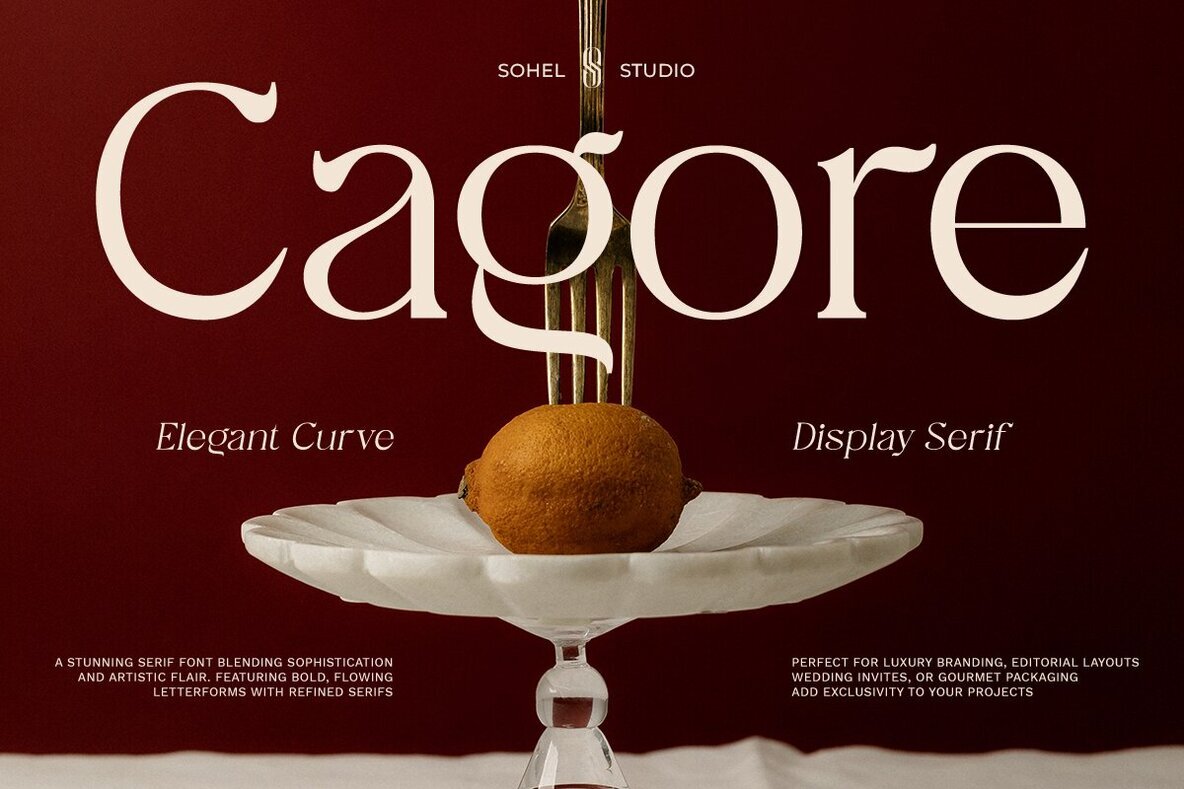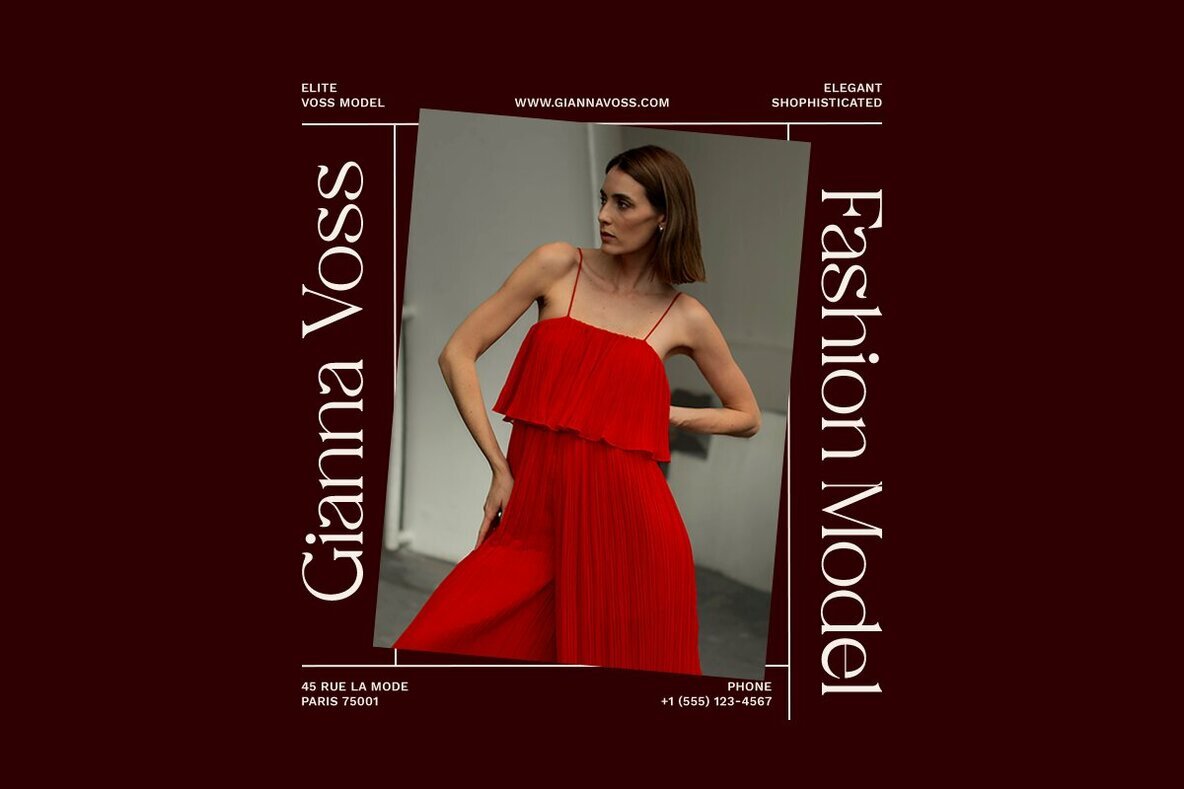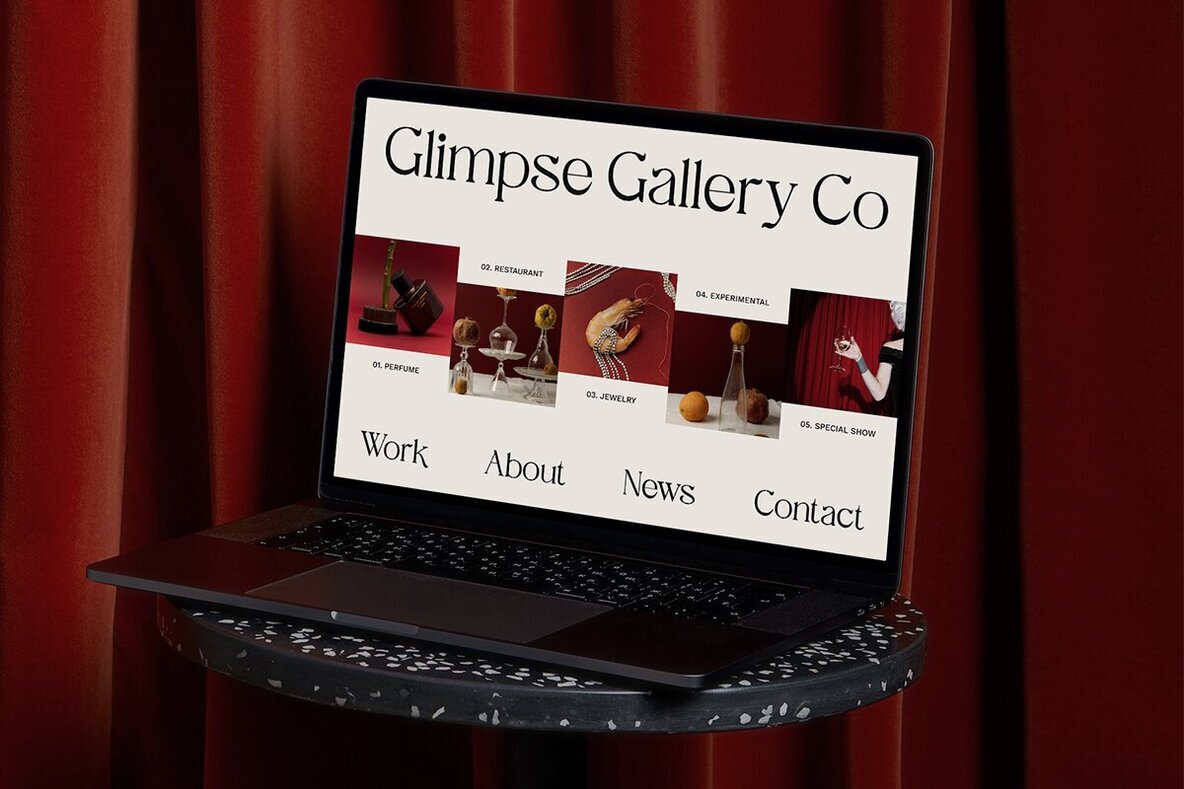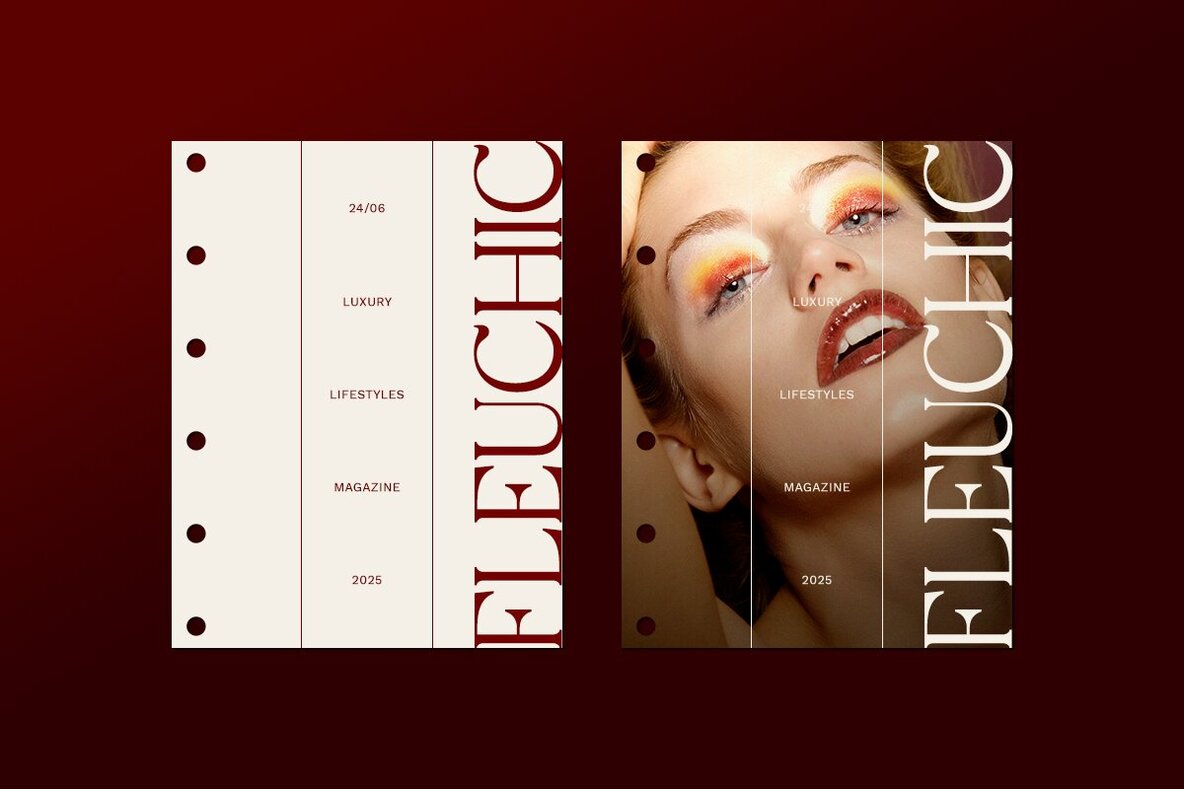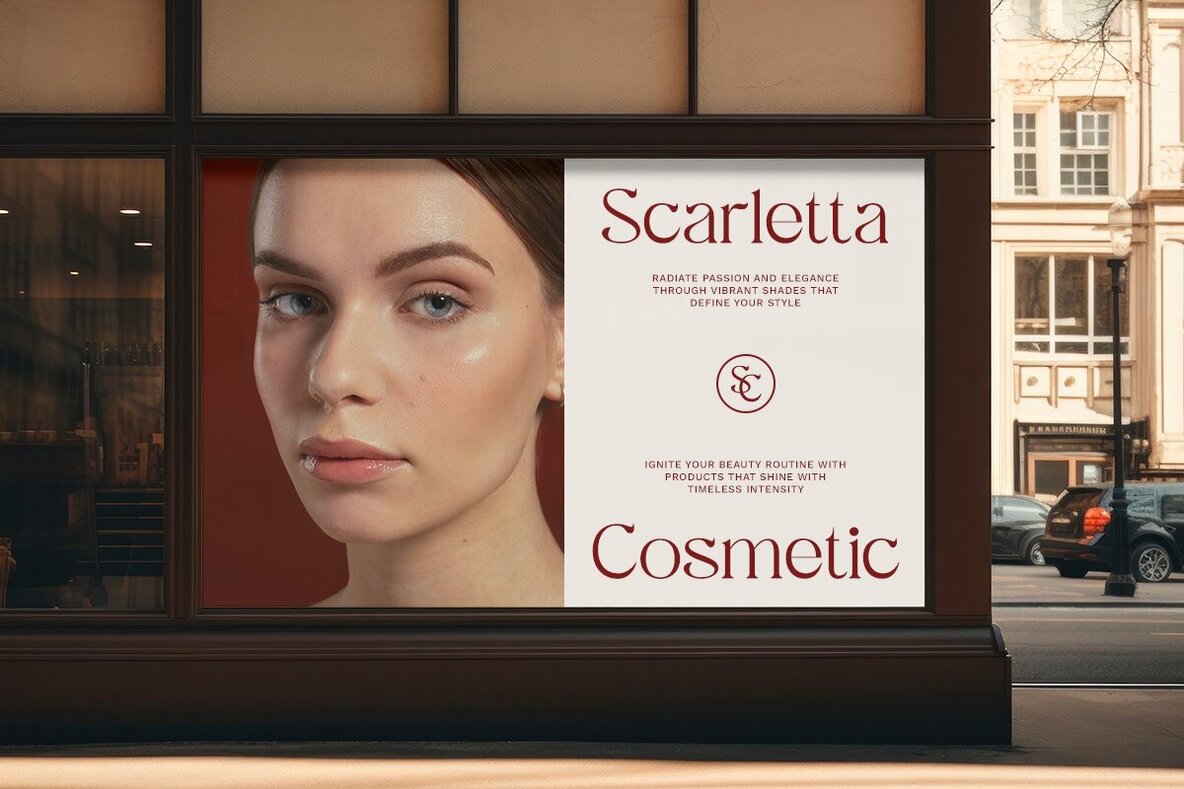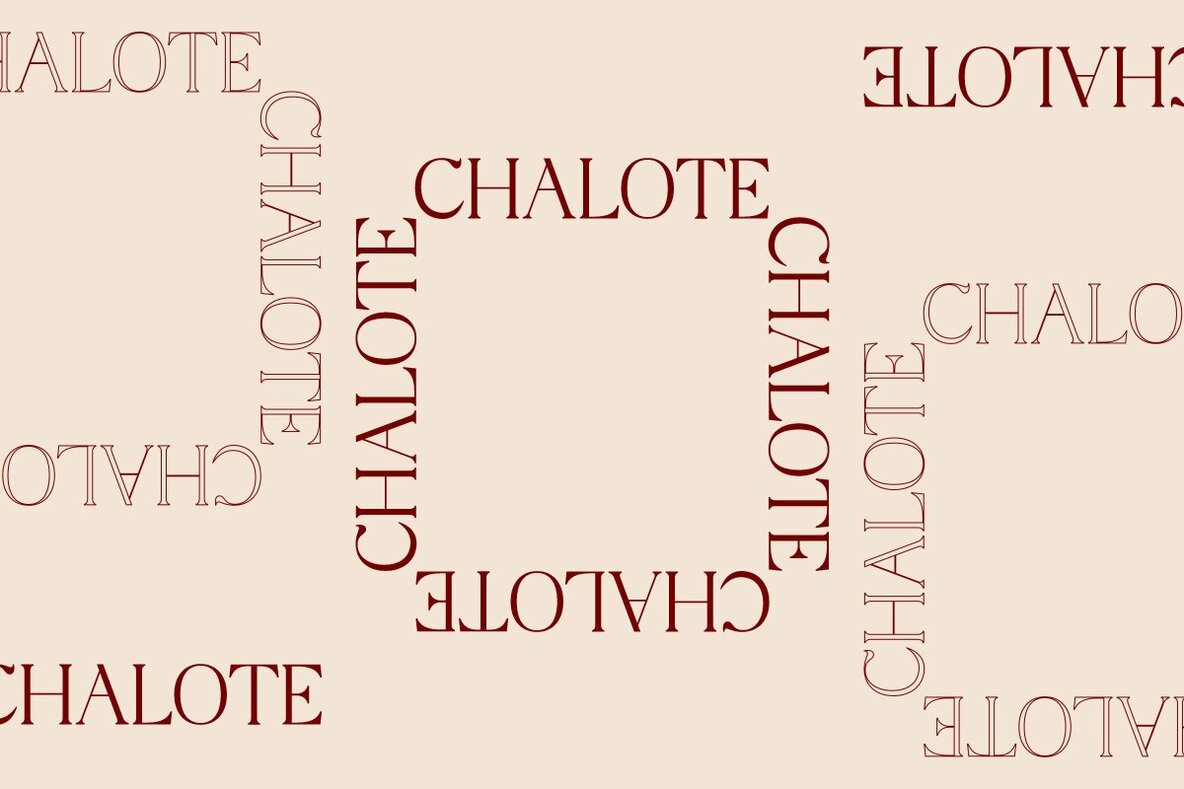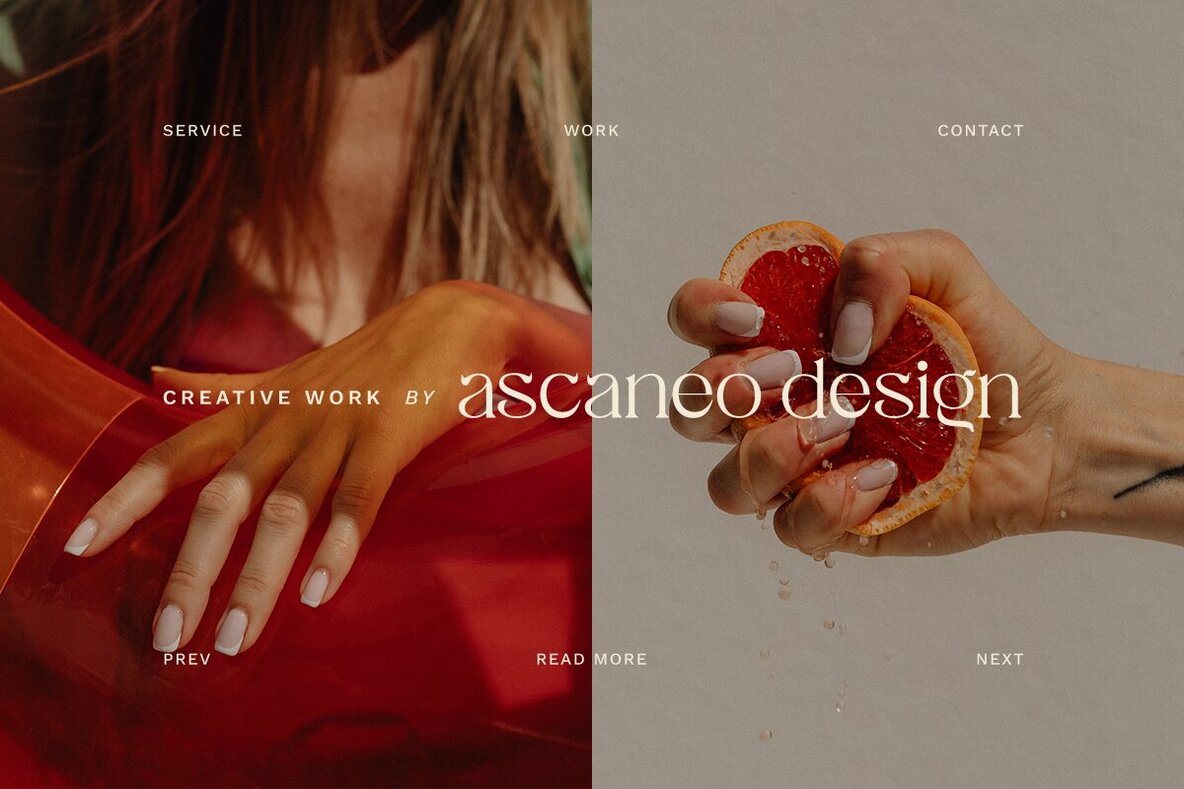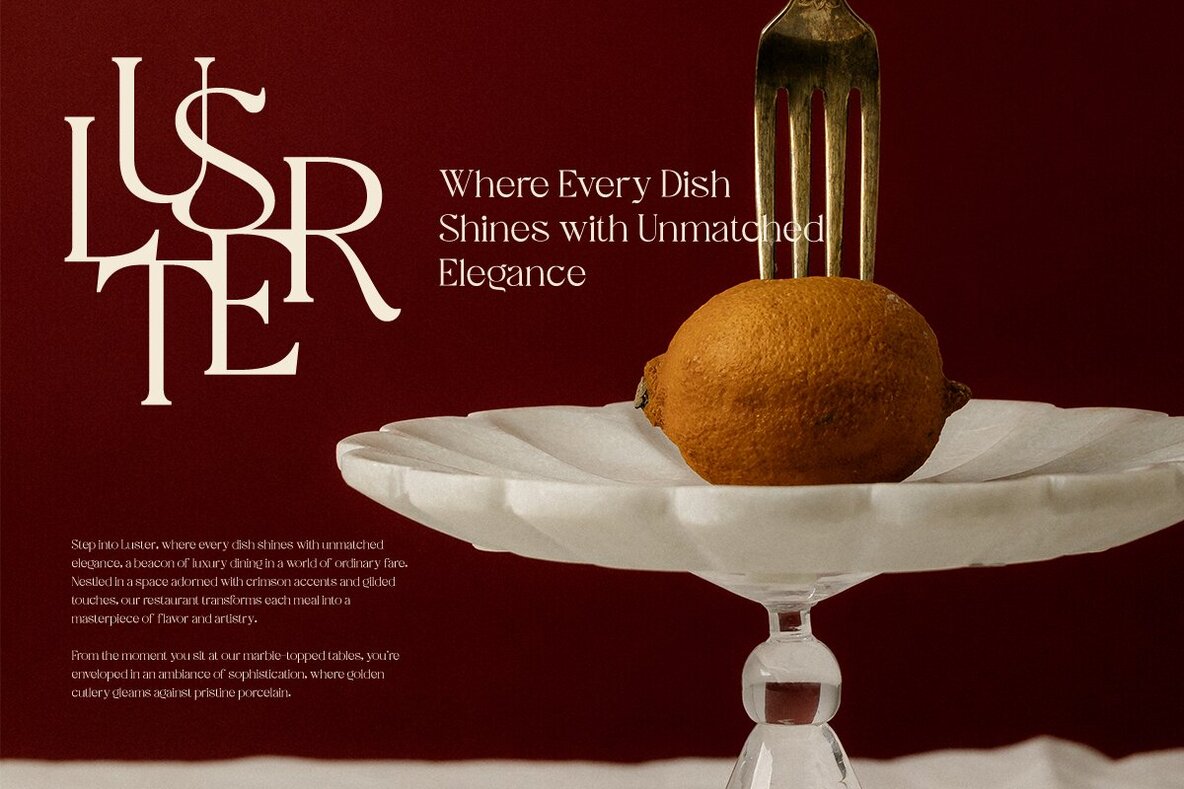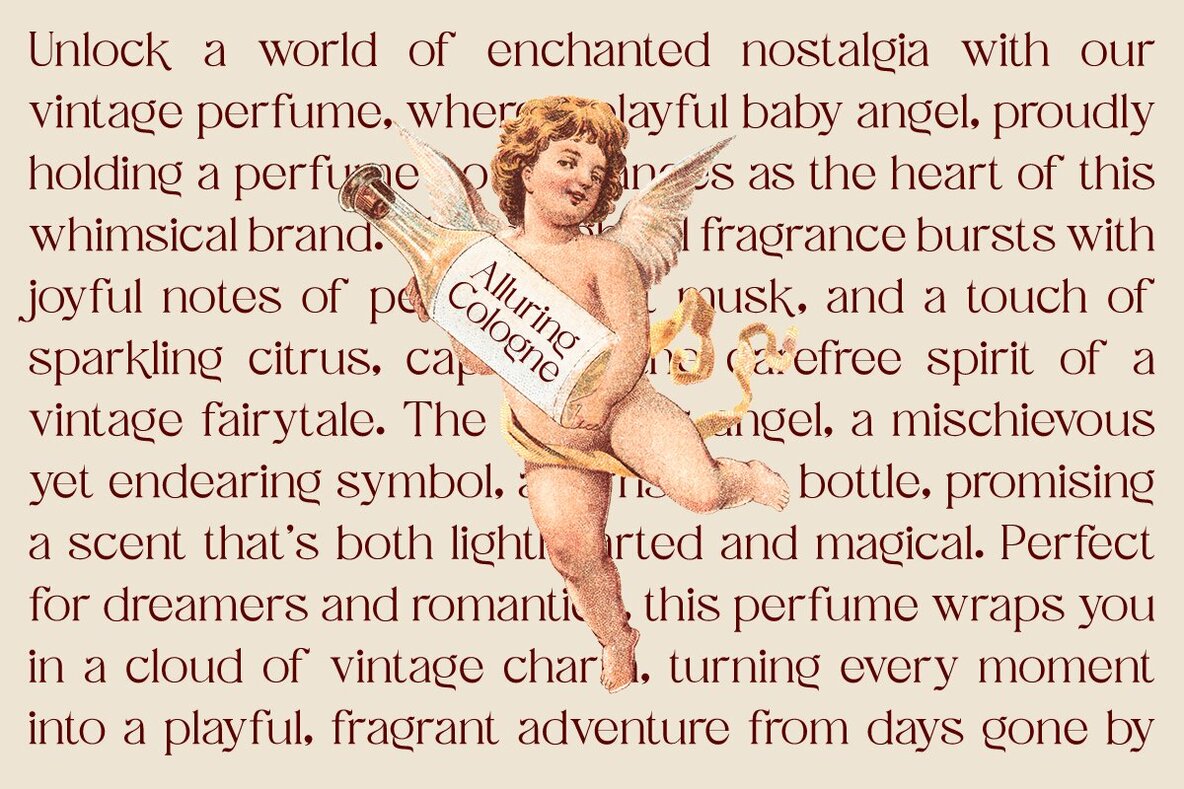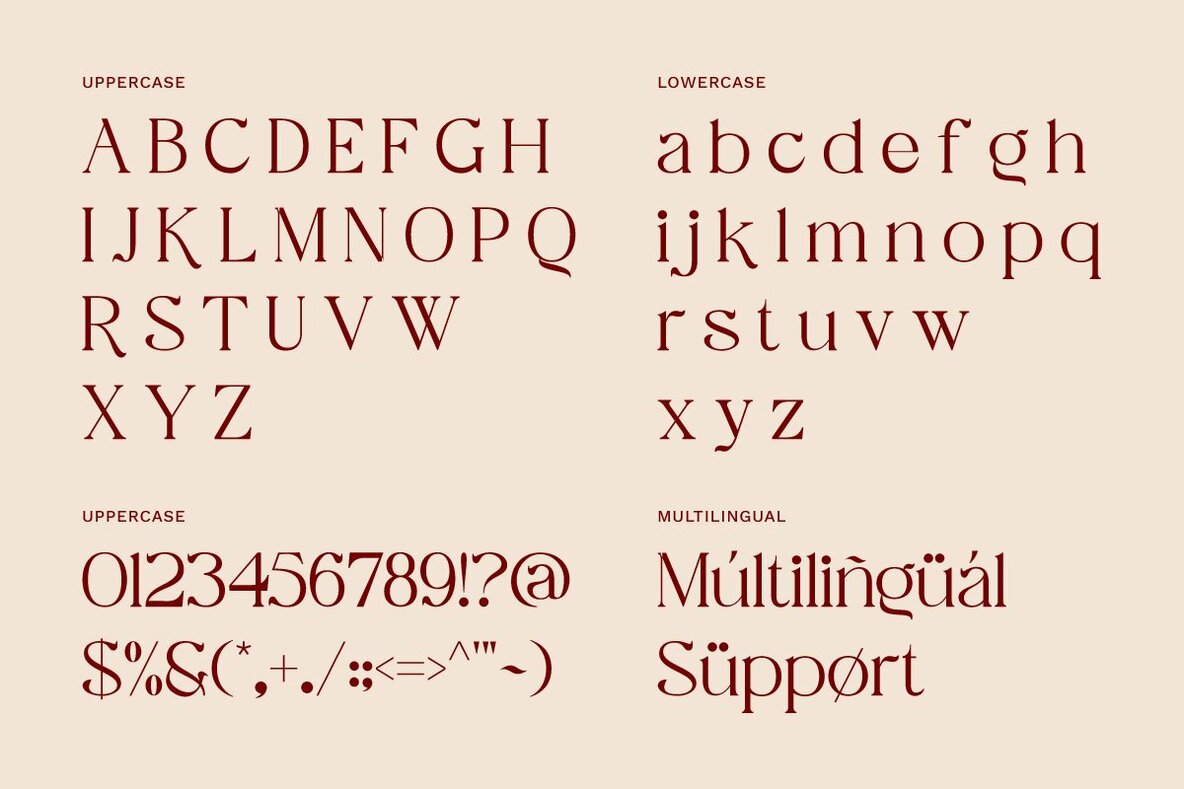
Cagore Font
Cagore Regular
Cagore is a refined display serif font, embodying elegance and sophistication. Crafted with smooth curves and balanced letterforms, this typeface combines classic aesthetics with a modern flair. With its graceful serifs and high-contrast strokes, Cagore radiates a luxurious feel, ideal for projects seeking an exclusive and timeless appeal. Elevate your luxury branding, high-end editorial designs, wedding invitations, gourmet packaging, or elegant ad campaigns with Cagore's grandeur and style. Each detail and curve is meticulously crafted, ensuring every word appears effortlessly beautiful and draws attention with its striking presence. Versatility is a hallmark of Cagore, adapting seamlessly to various creative applications. From logo designs to magazine headlines, book covers, and social media branding, its bold yet delicate structure provides an excellent choice for designers aiming to infuse class and refinement into their work. With Cagore, bring sophistication into your designs with a font that speaks elegance, artistry, and timeless beauty.Cagore Display Font
Cagore Features